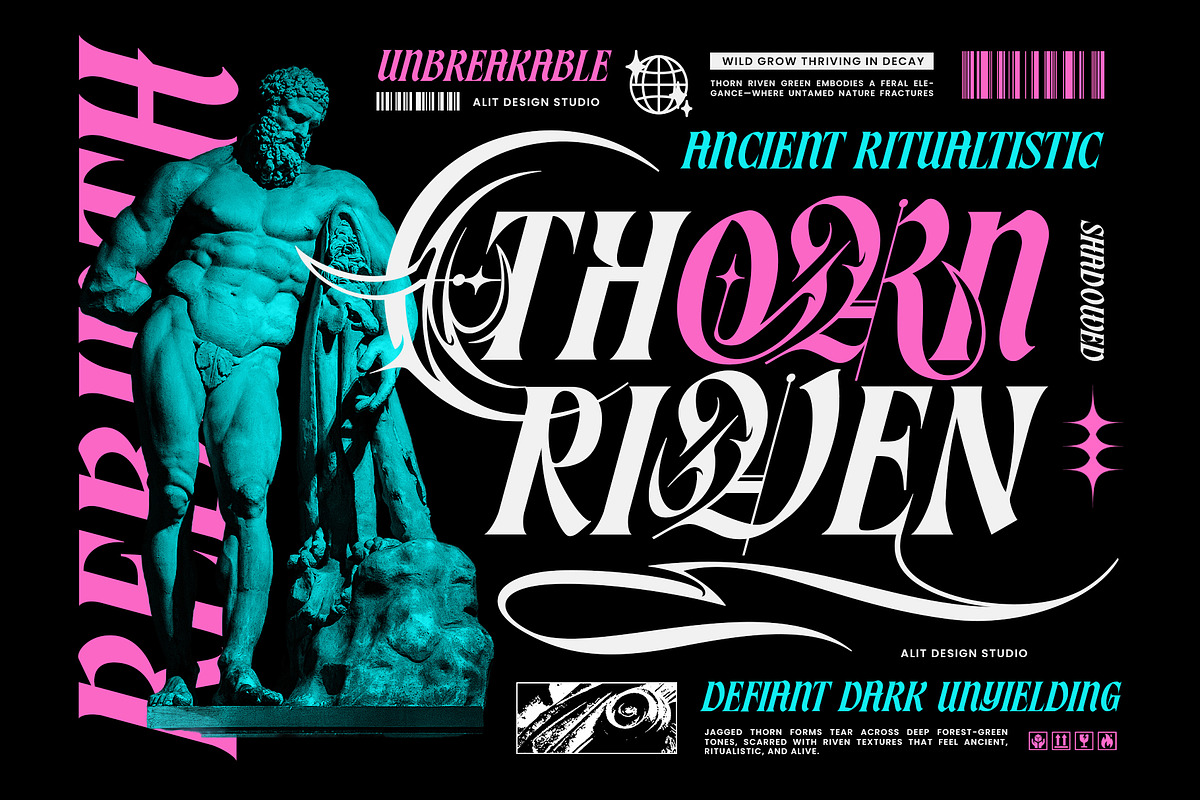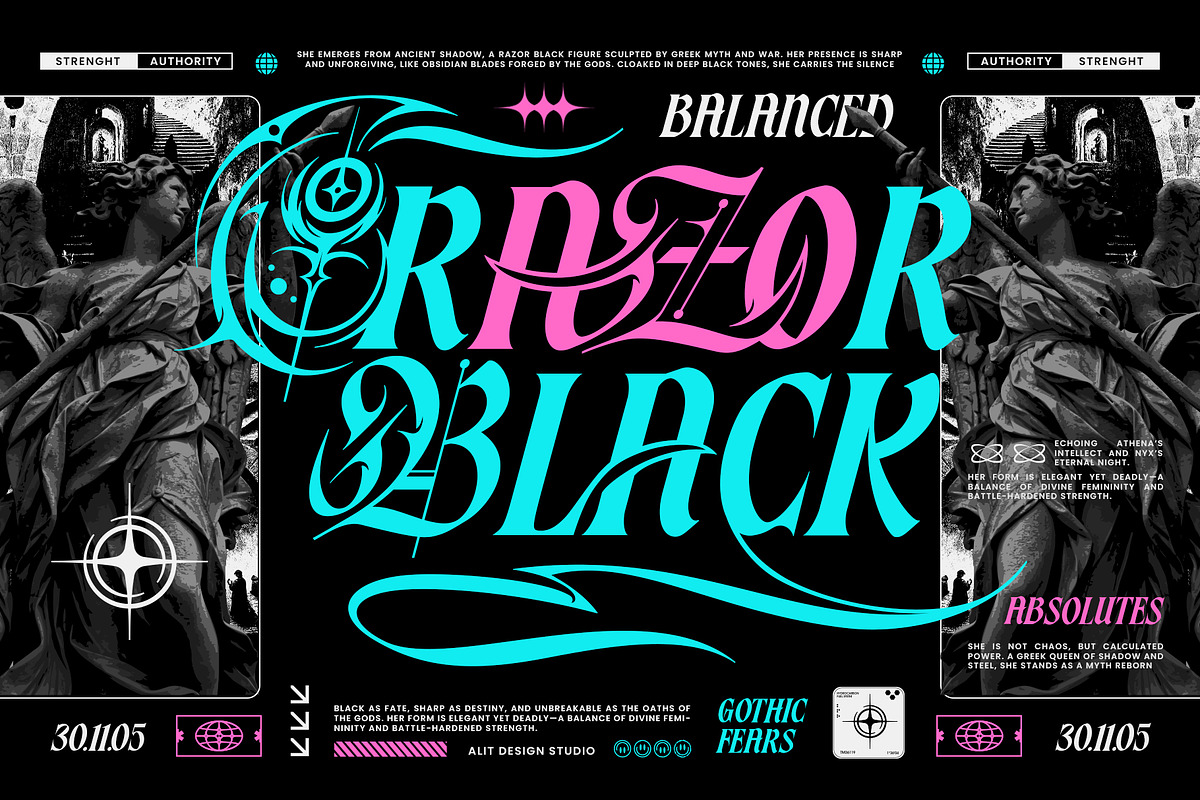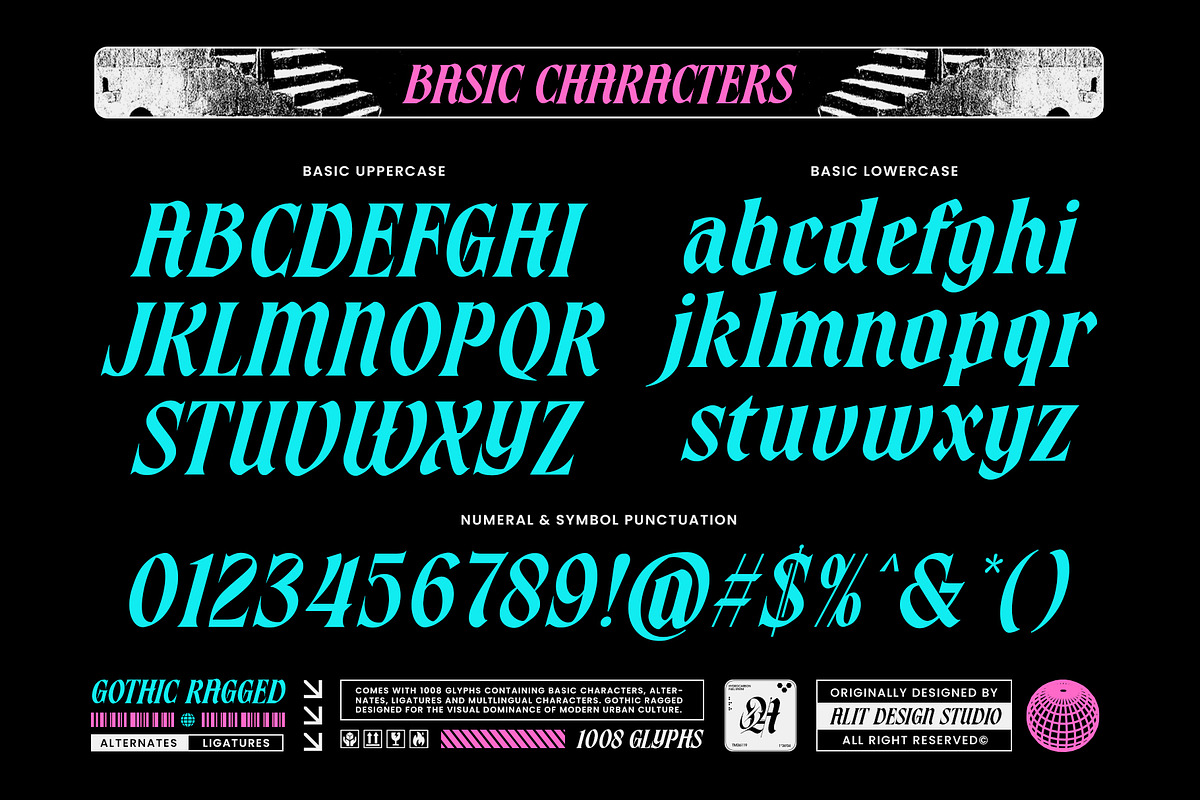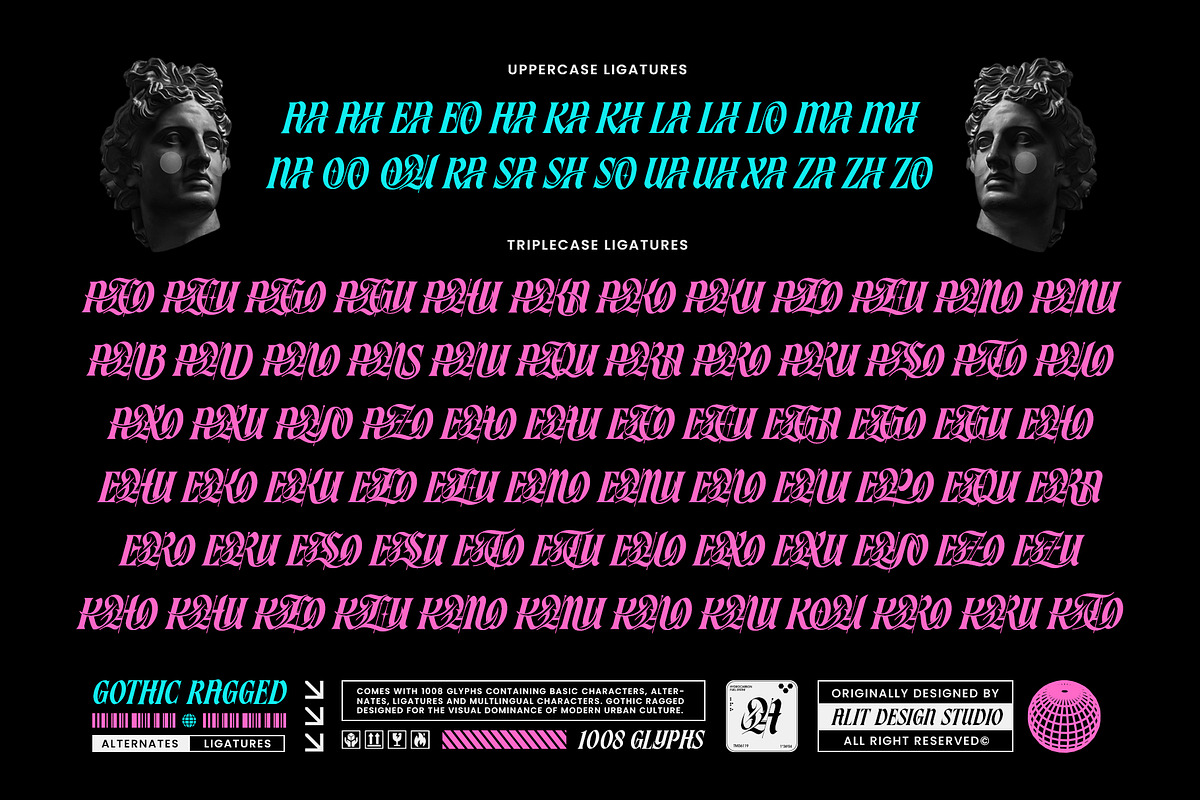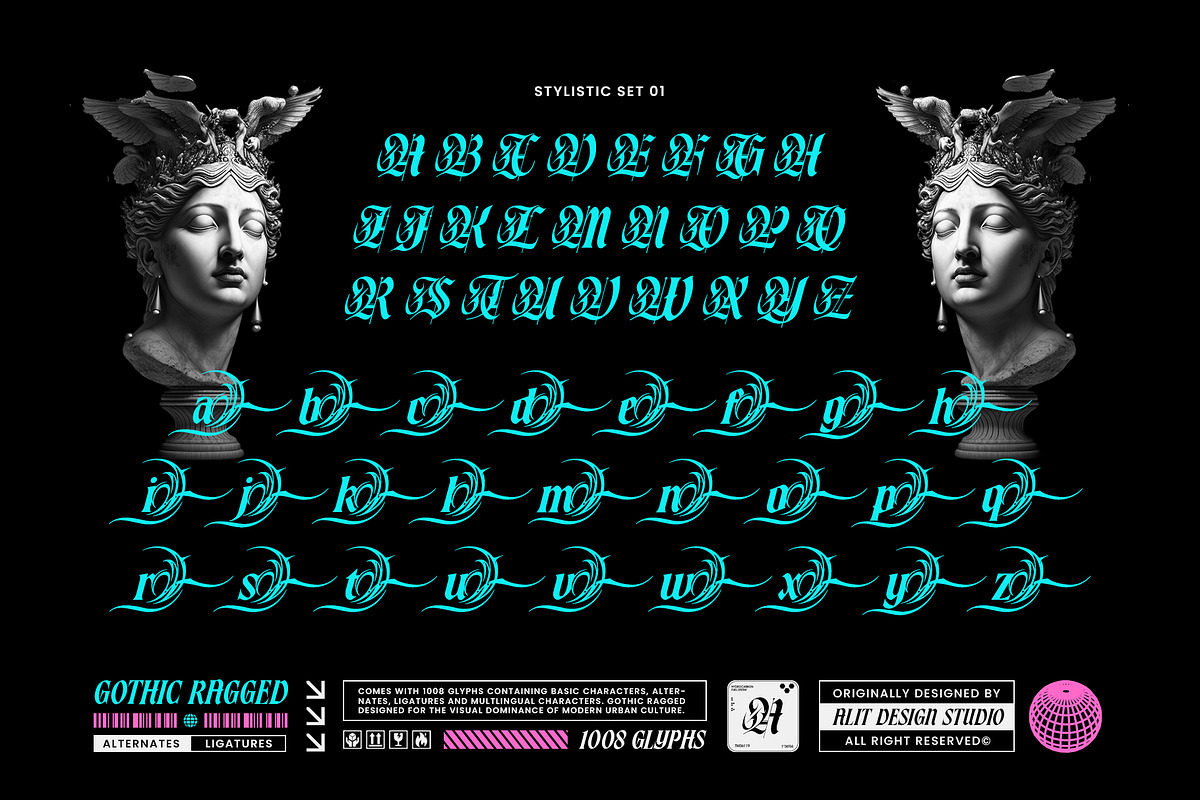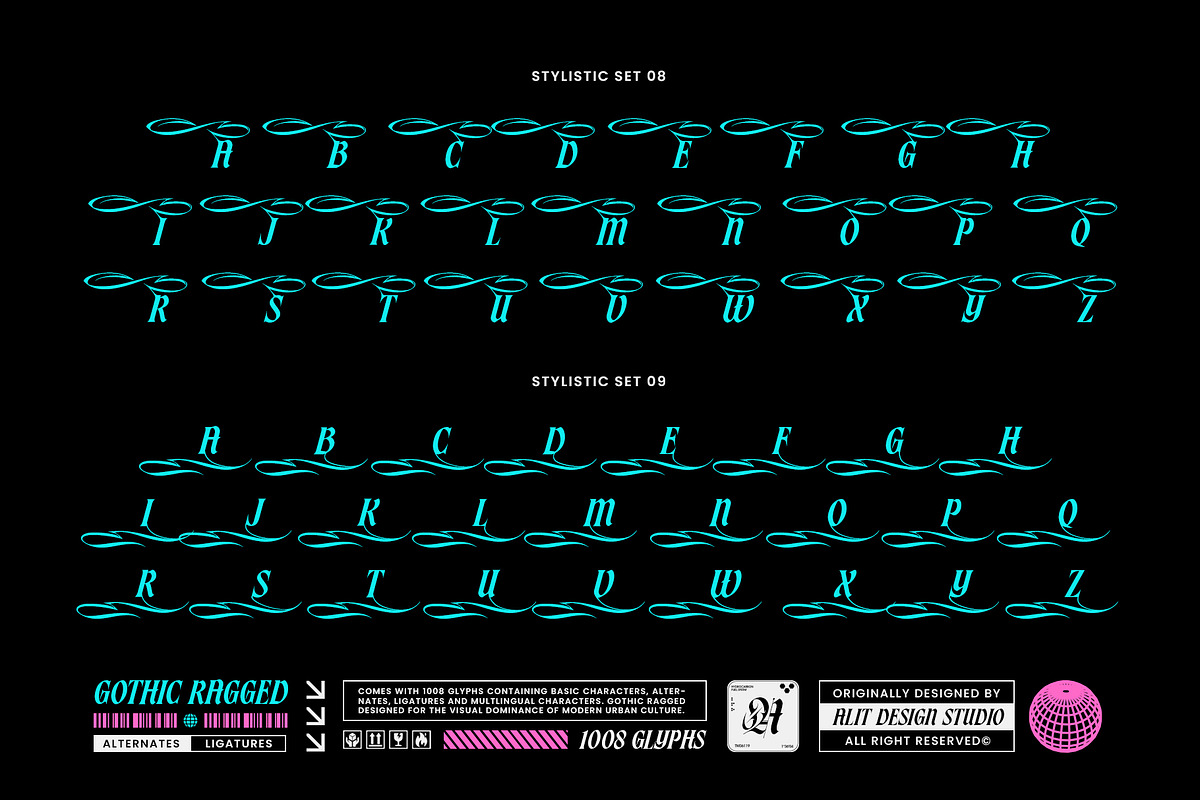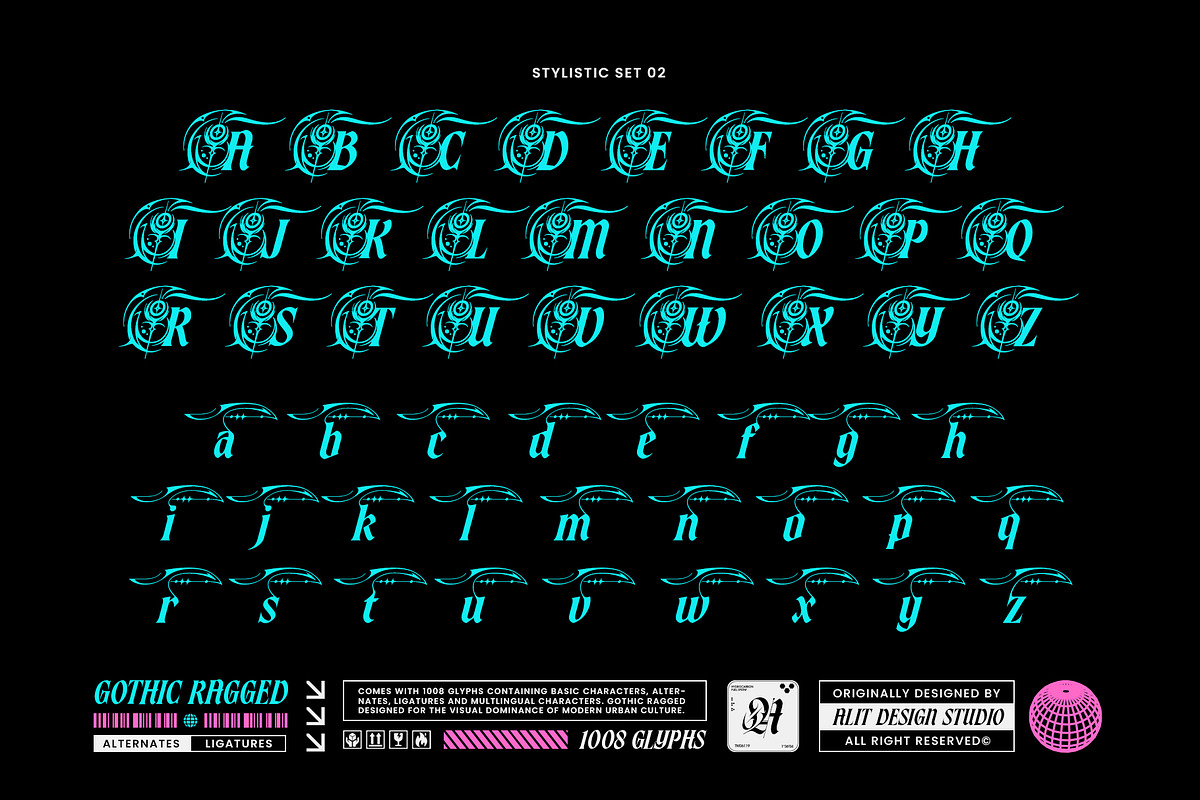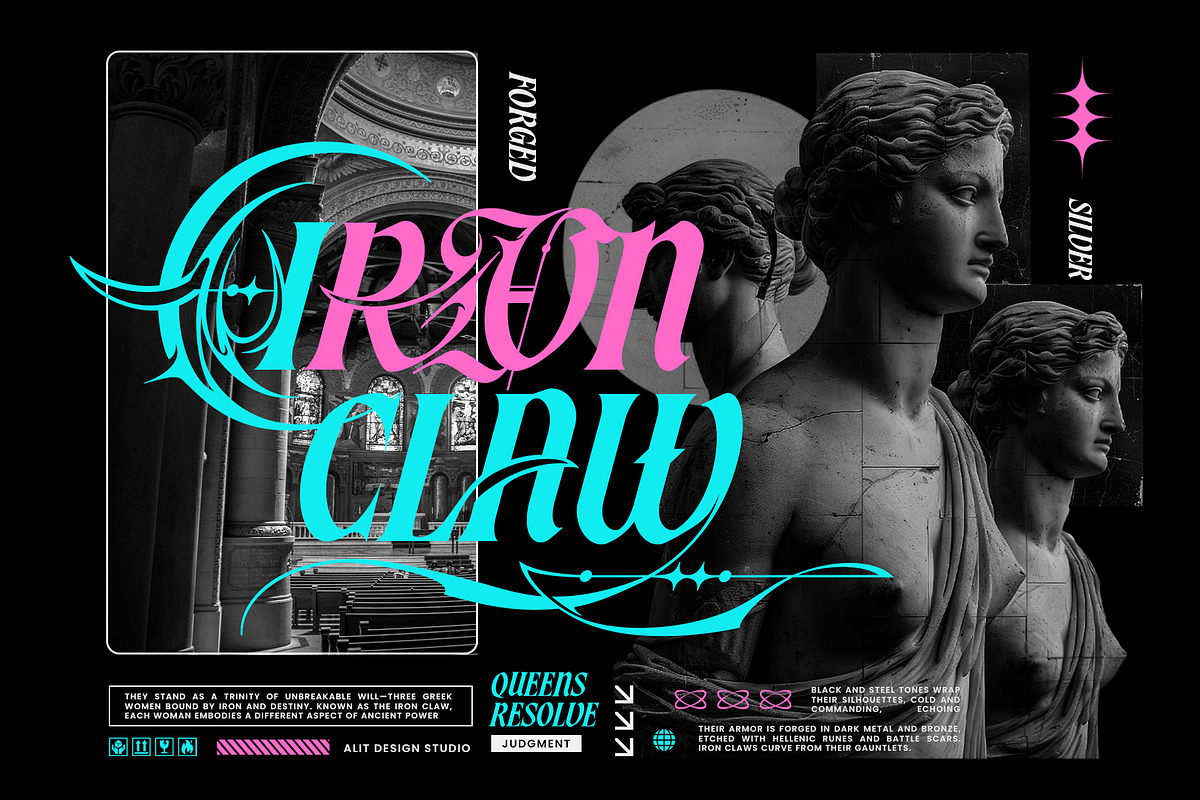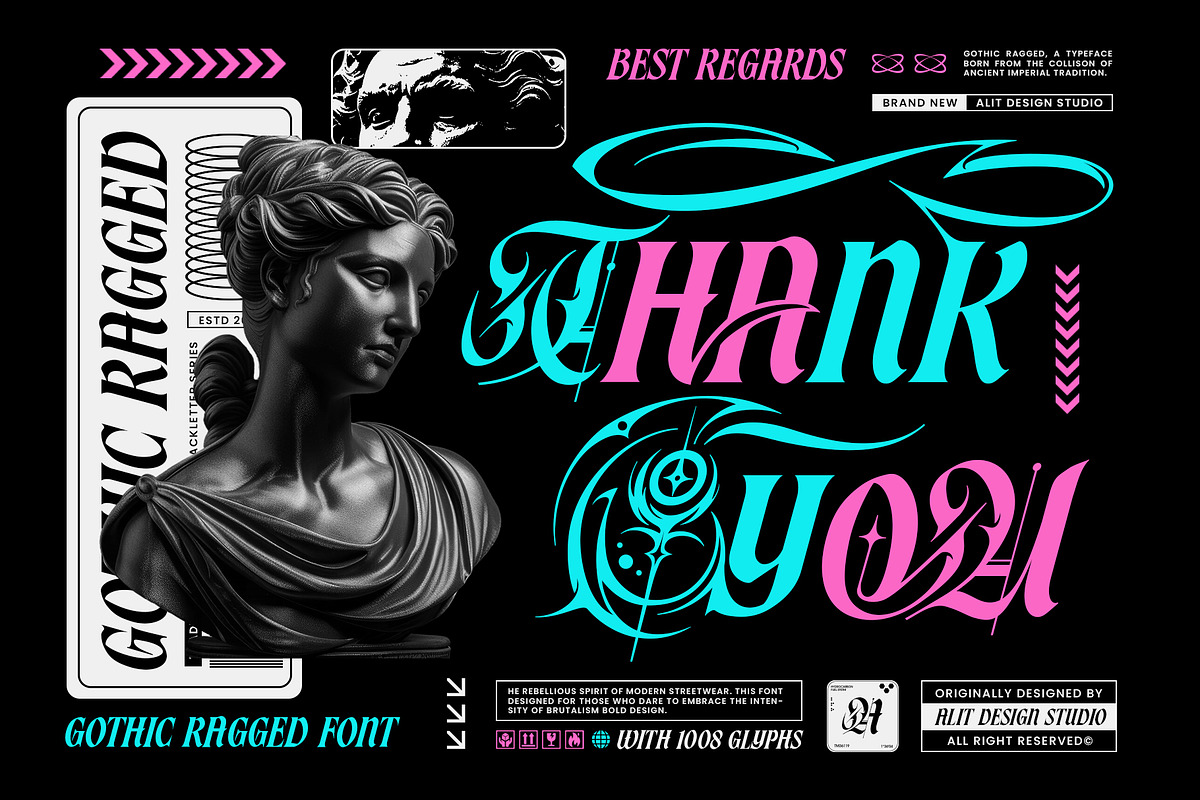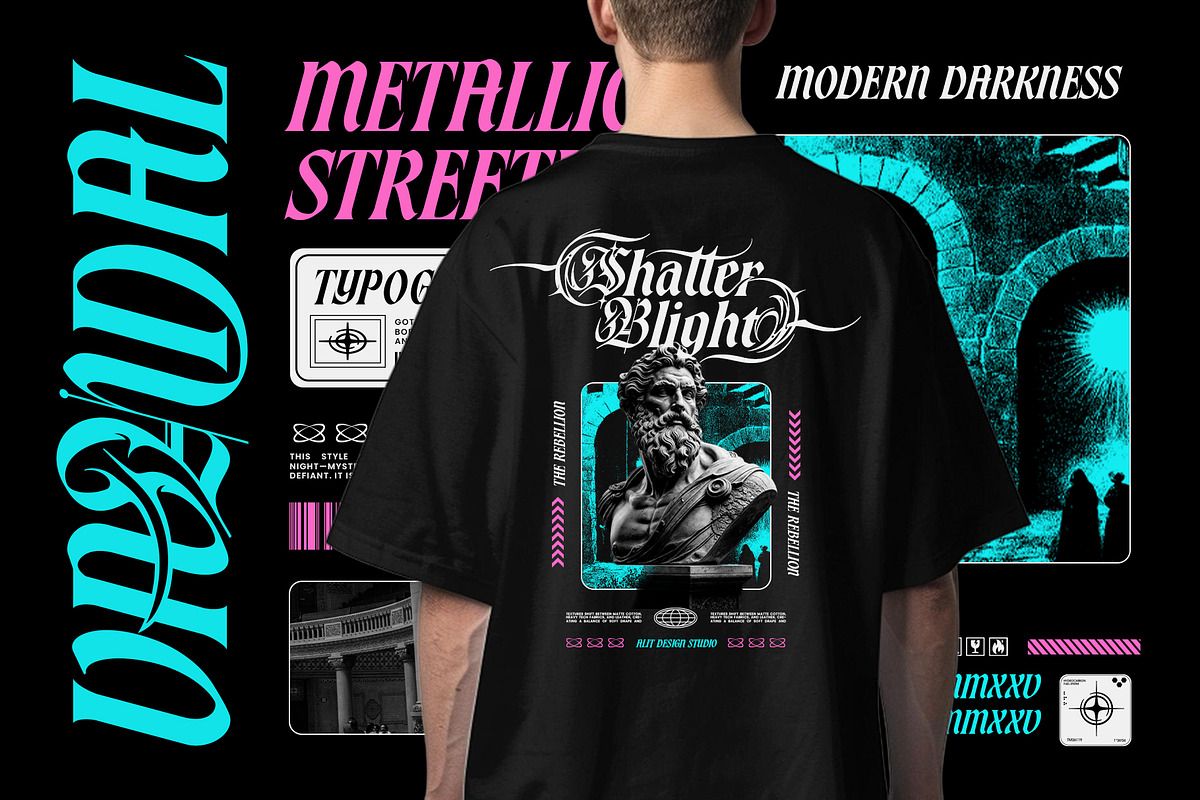
Gothic Ragged Typeface
Gothic Ragged – Modern Blackletter Typeface
Unleash the chaotic elegance of the underground with Gothic Ragged, a typeface born from the violent collision of ancient imperial tradition and modern brutalist streetwear.
Gothic Ragged is not just a font; it is a typographic rebellion. It takes the historic density of classic Blackletter and injects it with the speed and aggression of urban culture. Designed with a distinct italicized stance, this font carries a forward momentum that feels fast, sharp, and unapologetic. The characters are sculpted with razor-sharp terminals and intricate, thorn-like swashes that evoke the feeling of twisted iron and gothic architecture.
Perfect for designs that demand dominance, Gothic Ragged fits seamlessly into the worlds of high-end streetwear, heavy metal aesthetics, Y2K acid graphics, and avant-garde branding. Whether you are designing a band logo, a distinct clothing drop, or a poster that screams from the walls, this font provides the visual impact you need.
- Massive Glyph Library: Comes packed with 1008 glyphs, offering you an endless playground of alternates to create truly unique wordmarks.
- Aggressive Stylistic Sets: Includes multiple stylistic sets (SS01, SS03) featuring elaborate swashes, underline accents, and decorative flourishes that extend beyond standard typography.
- Modern Italic Stance: The slanted design adds a dynamic layer of speed and tension, separating it from static, traditional medieval fonts.
- Versatile Application: Engineered for display use in logos, album covers, merchandise, tattoos, and headlines.
- Multilingual Support: Fully equipped to handle global creative projects.
Gothic Ragged is where the past bleeds into the future—defiant, dark, and unyielding.